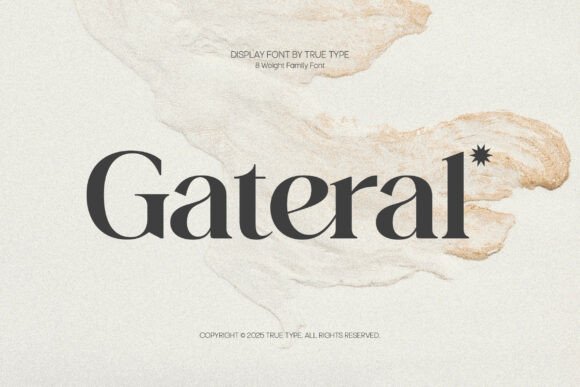
Introduction to Gateral Font
Gateral is a serif typeface designed with clarity, balance, and subtle elegance in mind.
Its clean structure and gentle contrast make it suitable for a wide range of uses from branding and editorial design to packaging and digital content Built to be readable at both large and small sizes, Gateral offers a professional tone without feeling cold or overly formal.